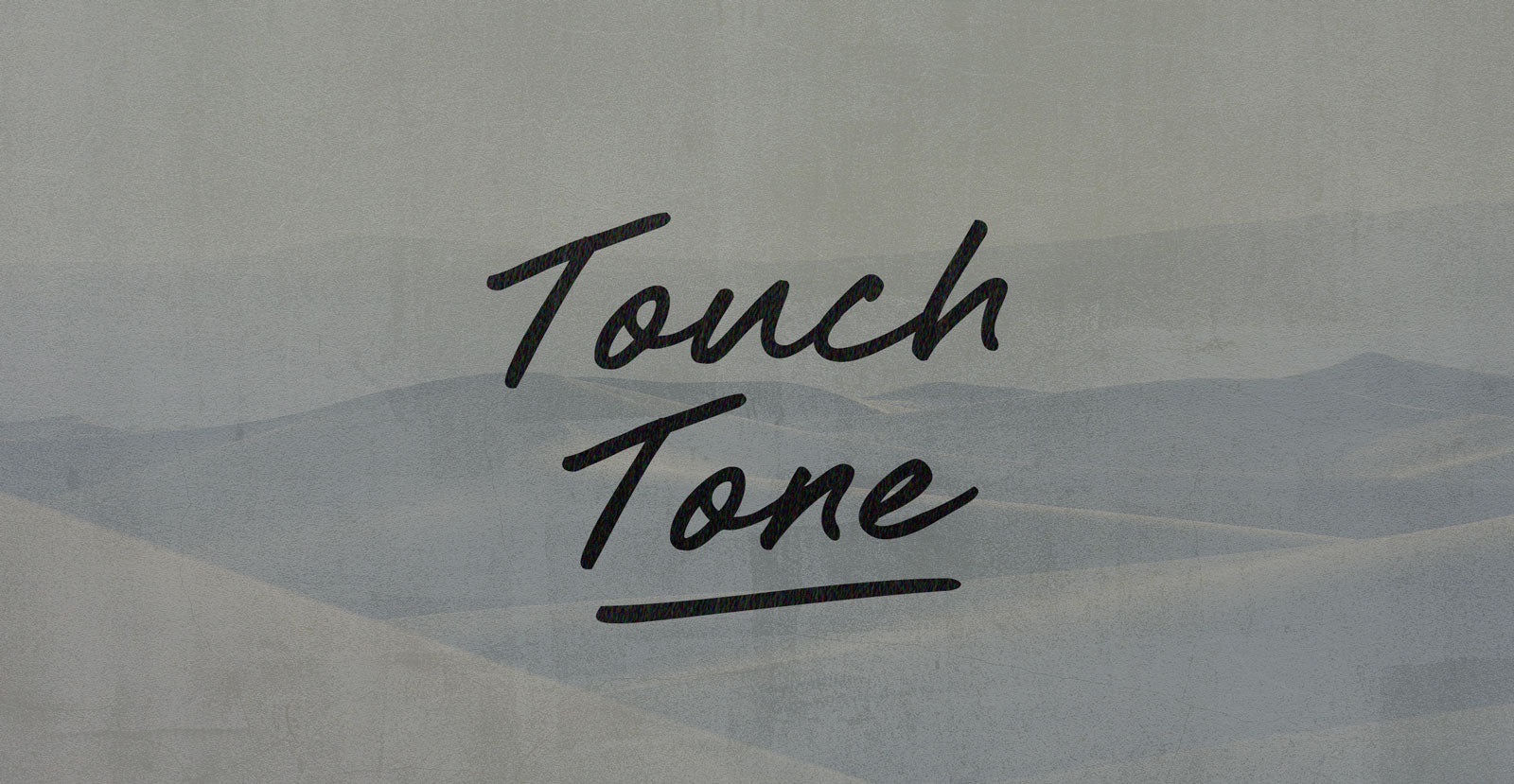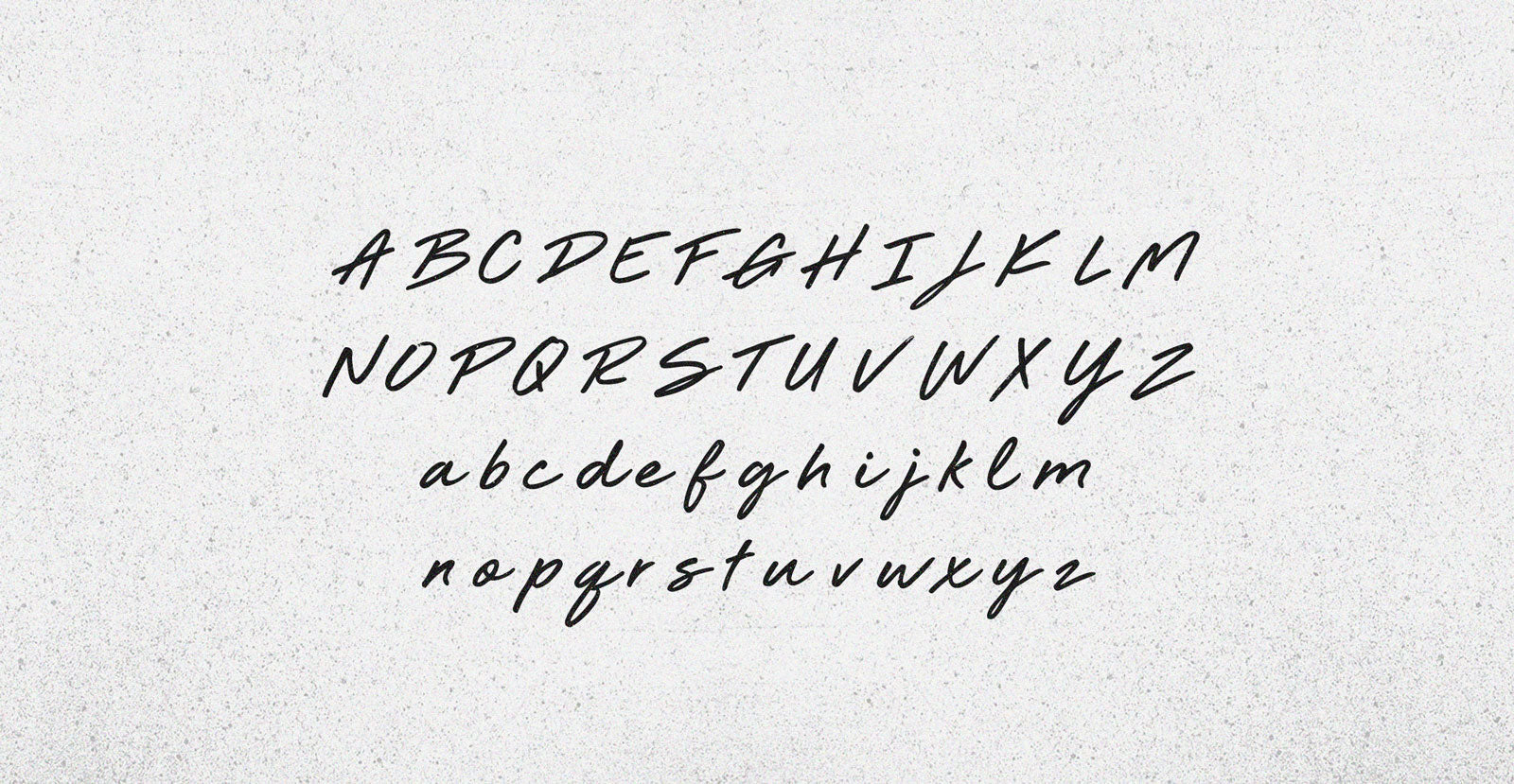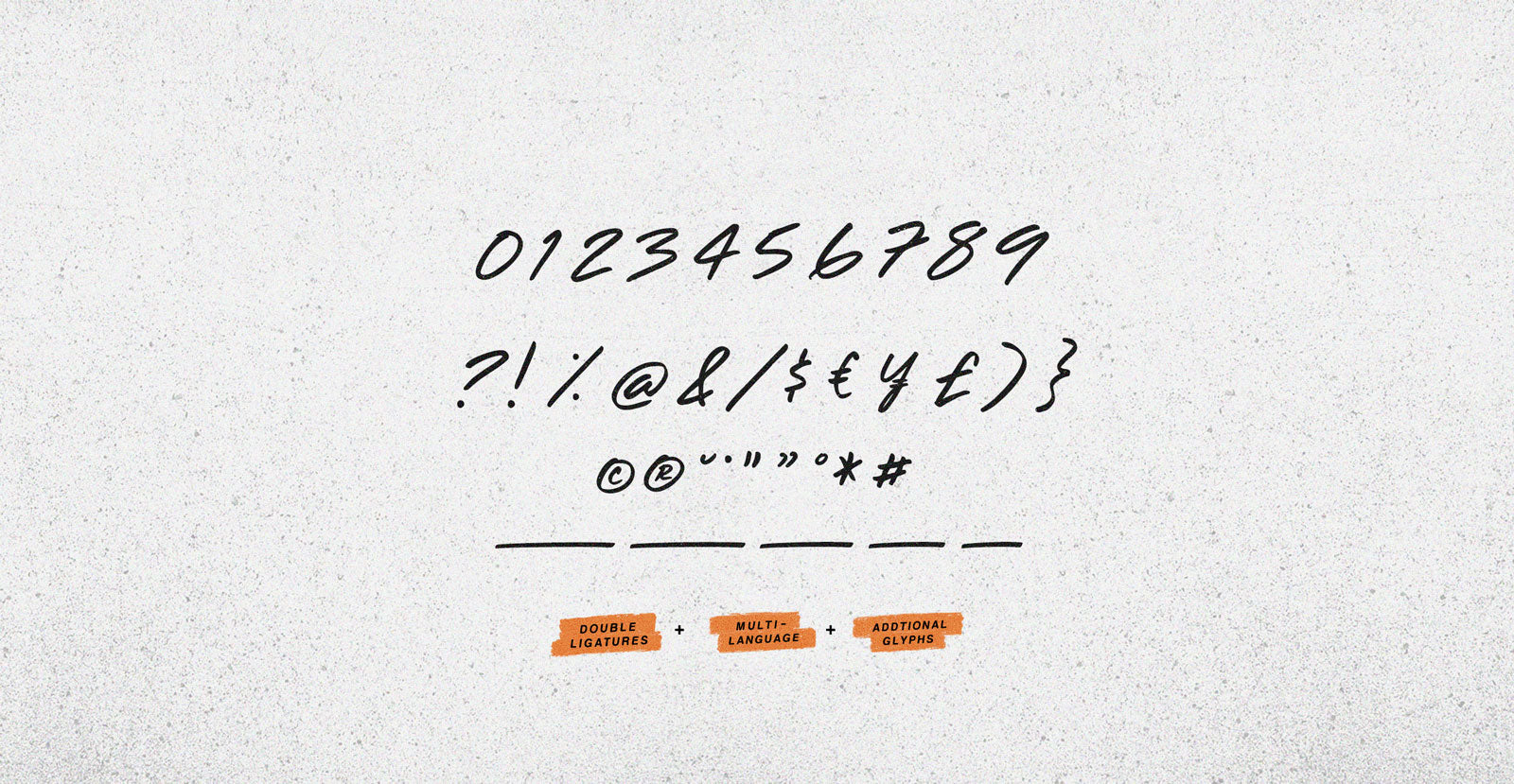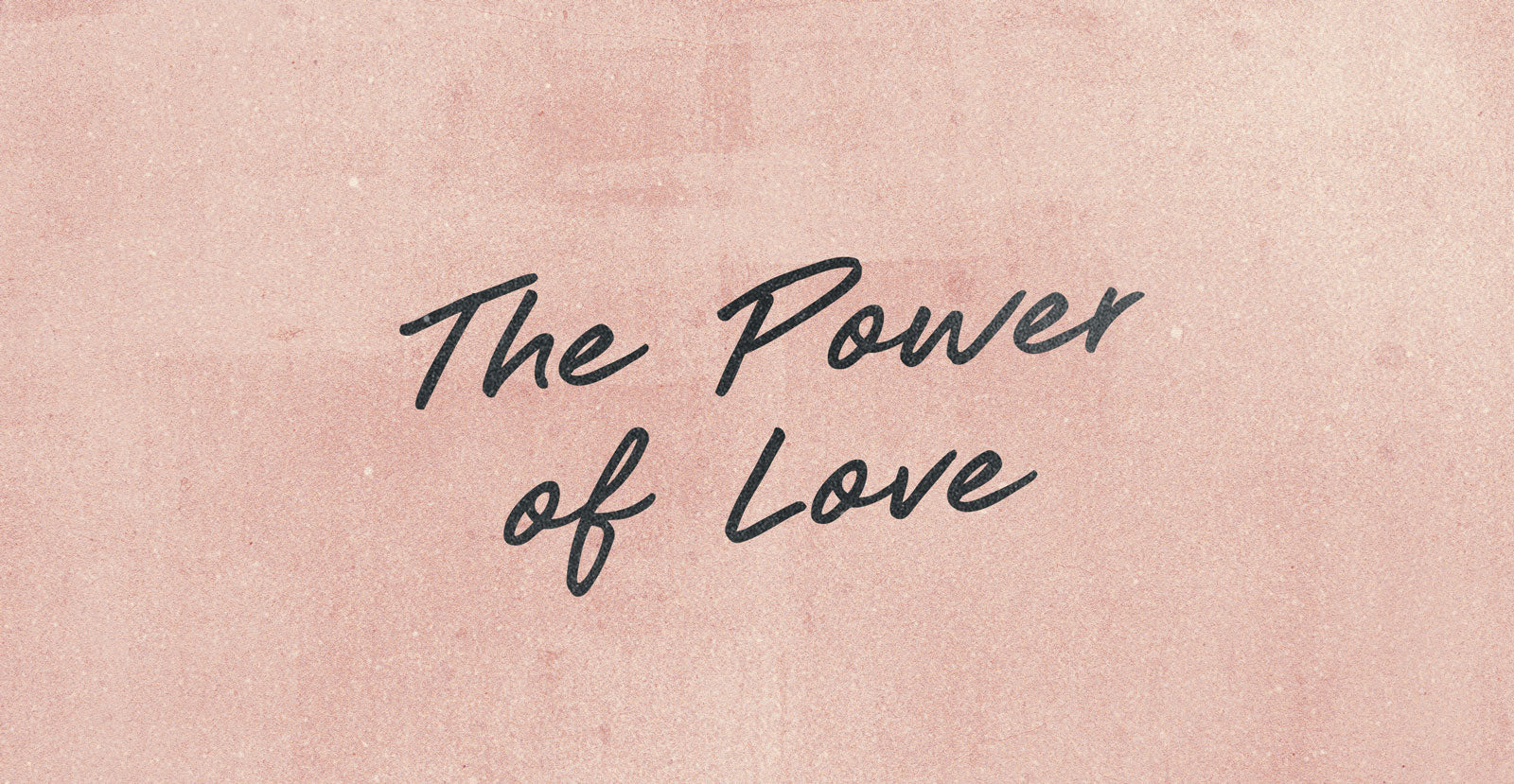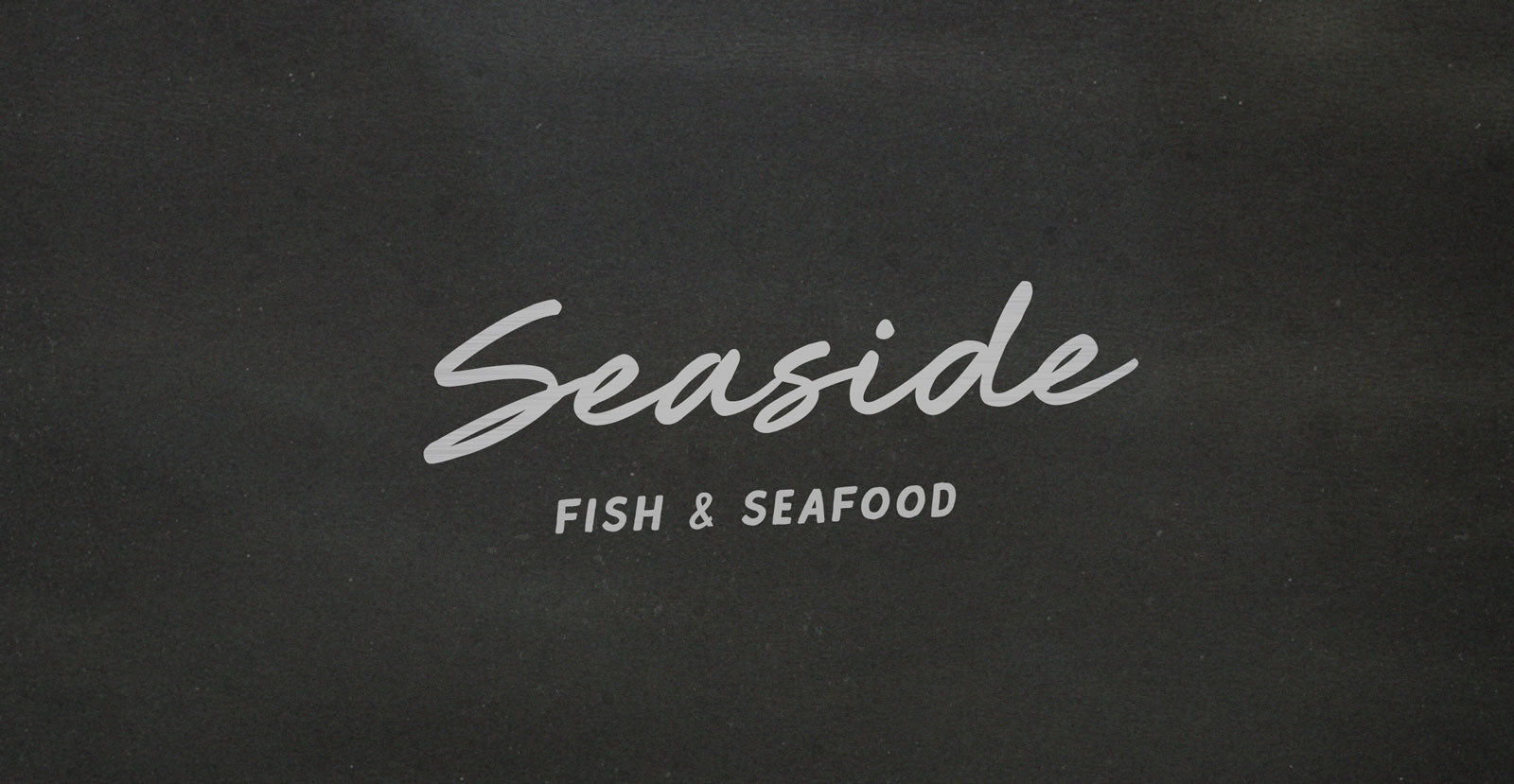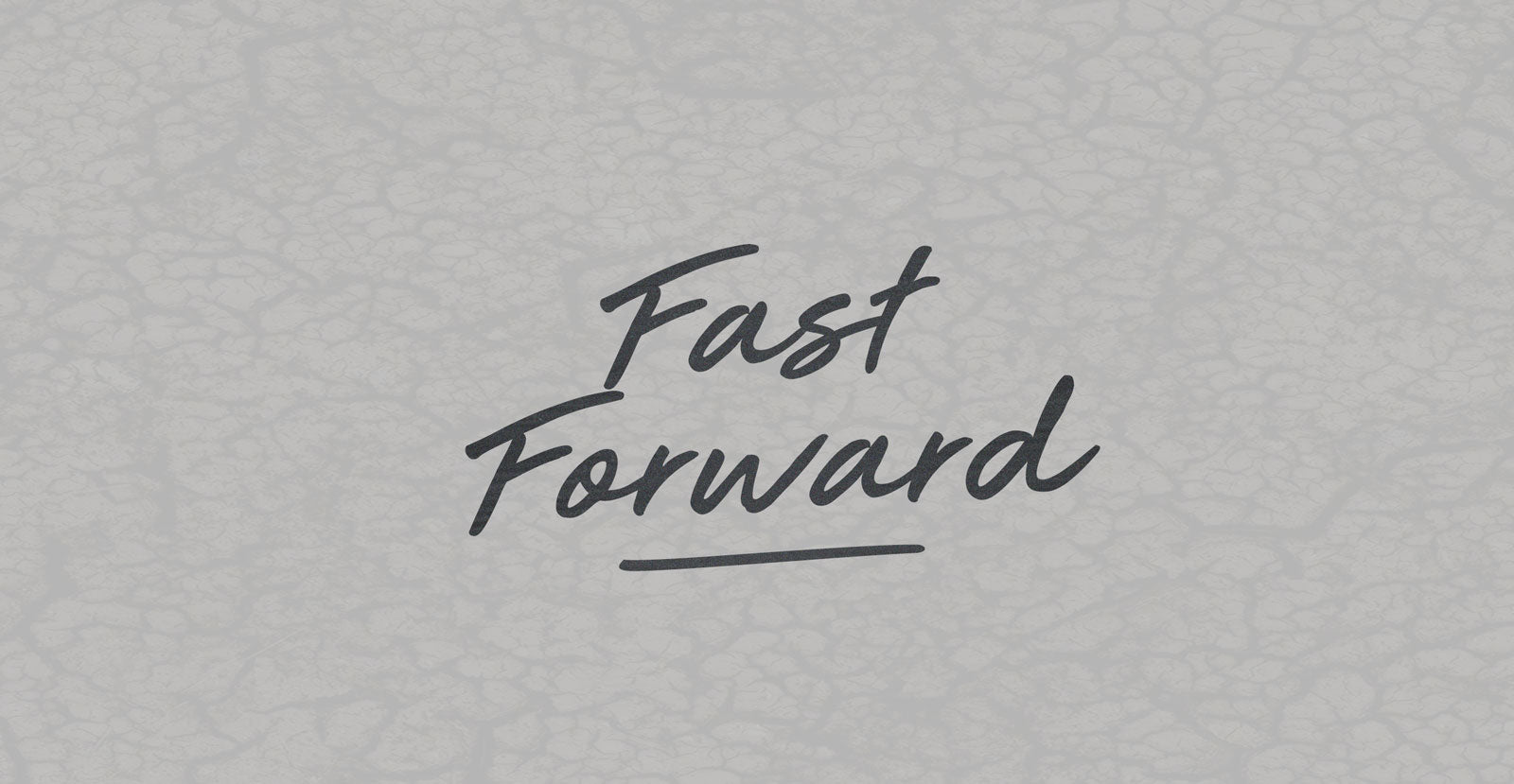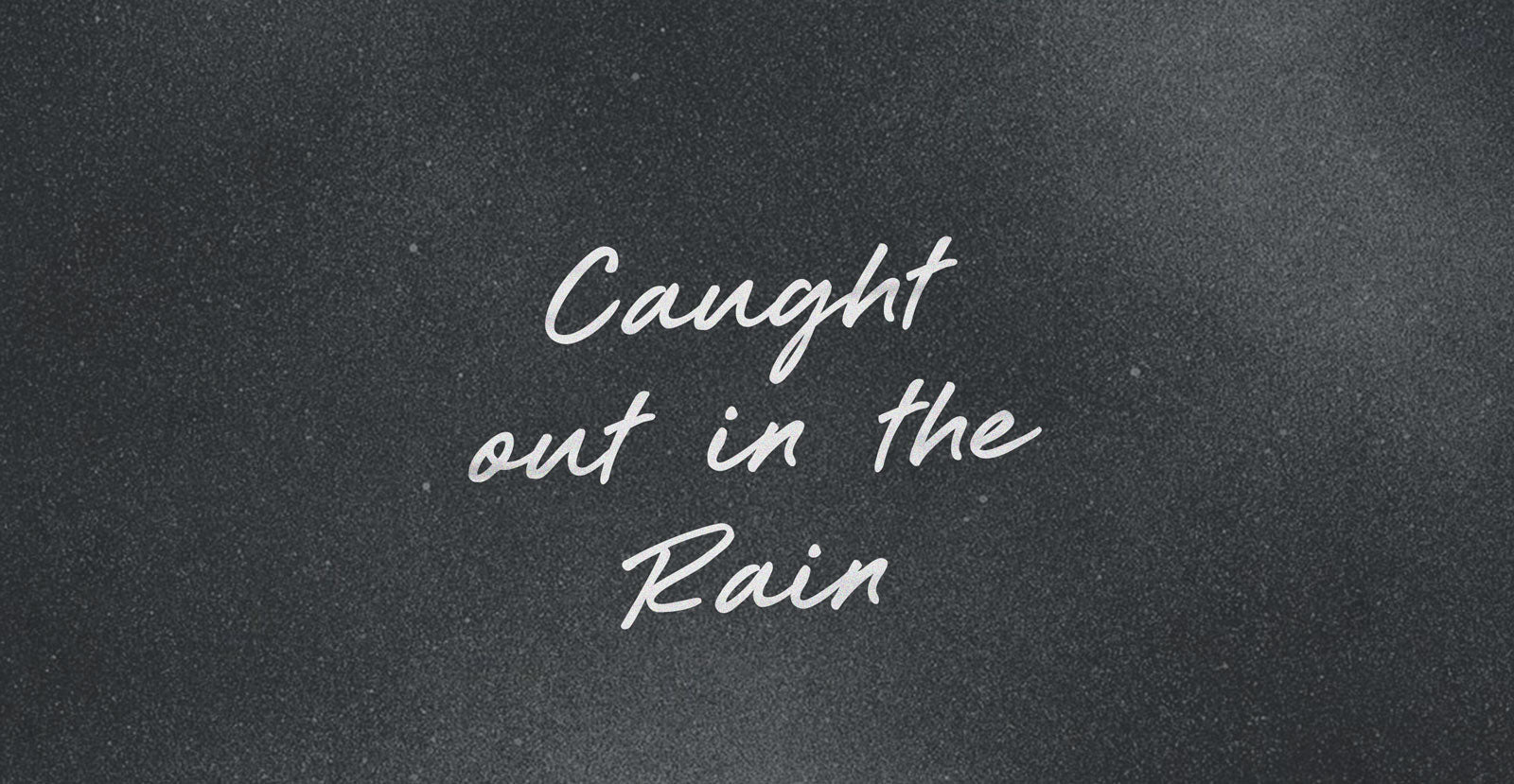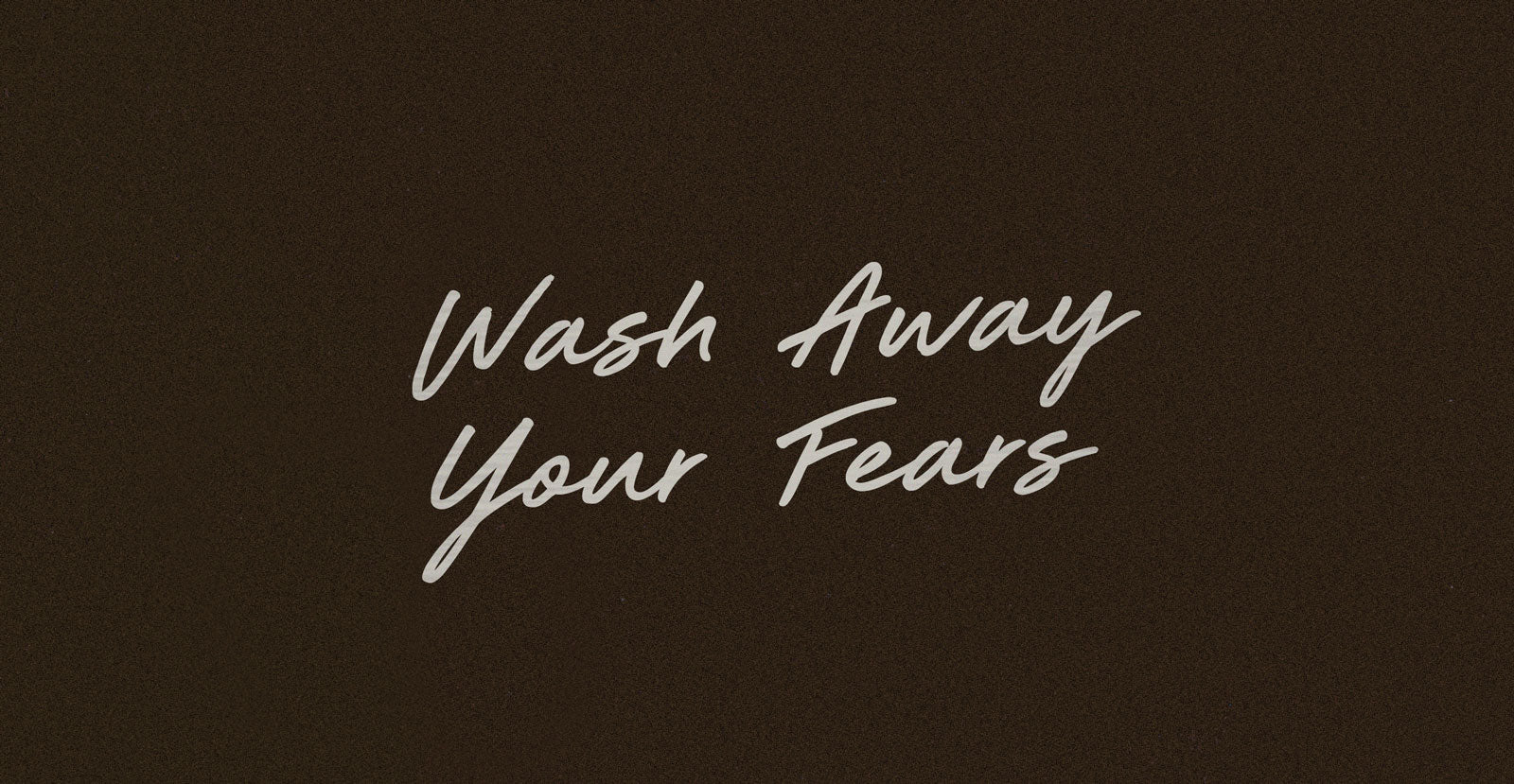
Touch Tone
Still throwing one-twos like canned hams at hungry can openers? Haul off and crush one or two on the Touch Tone—beep or bap it’s all analogue anyway; dialed back to operator, so to speak.